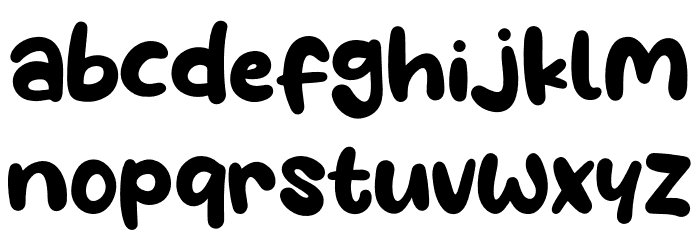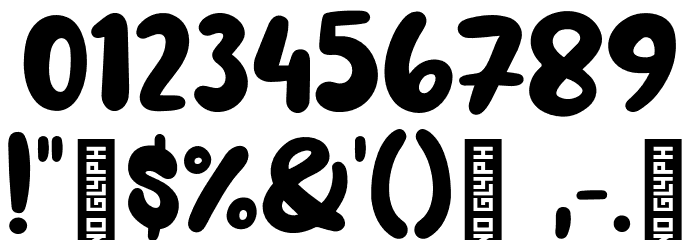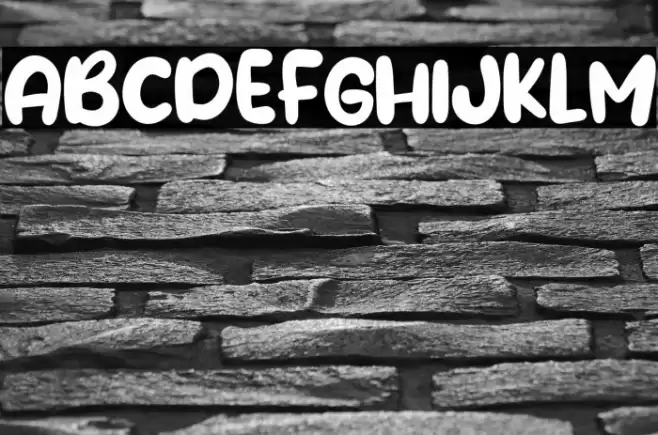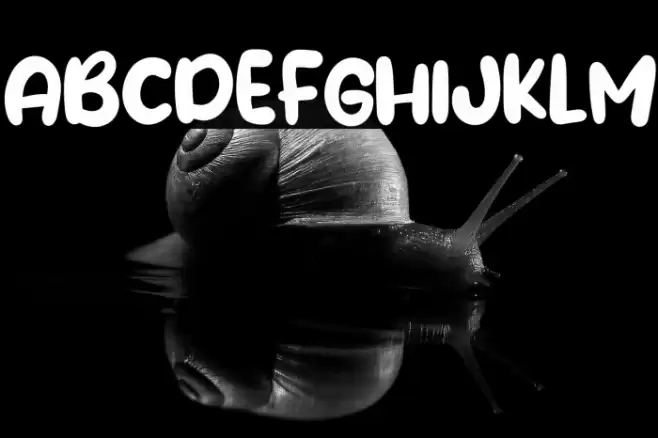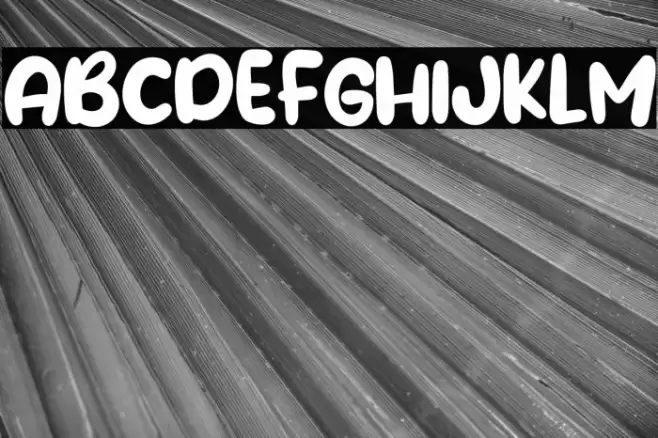
Water Galon Font
This playful and bold font features rounded, thick strokes that give it a friendly and approachable appearance. The characters are slightly irregular, adding a whimsical touch to the overall design. The uppercase and lowercase letters maintain a consistent style, with smooth curves and a uniform thickness throughout. Numbers and special characters are designed to match the playful aesthetic, making this font ideal for projects that require a fun and informal tone. The overall look is modern yet casual, perfect for capturing attention in a lighthearted way.
A playful, bold font with rounded, thick strokes and a whimsical style.
- Font: Water Galon
- Proposed Projects: Ideal for children's books, playful branding, casual invitations, and fun social media graphics.
- Overall Style: Playful, Modern